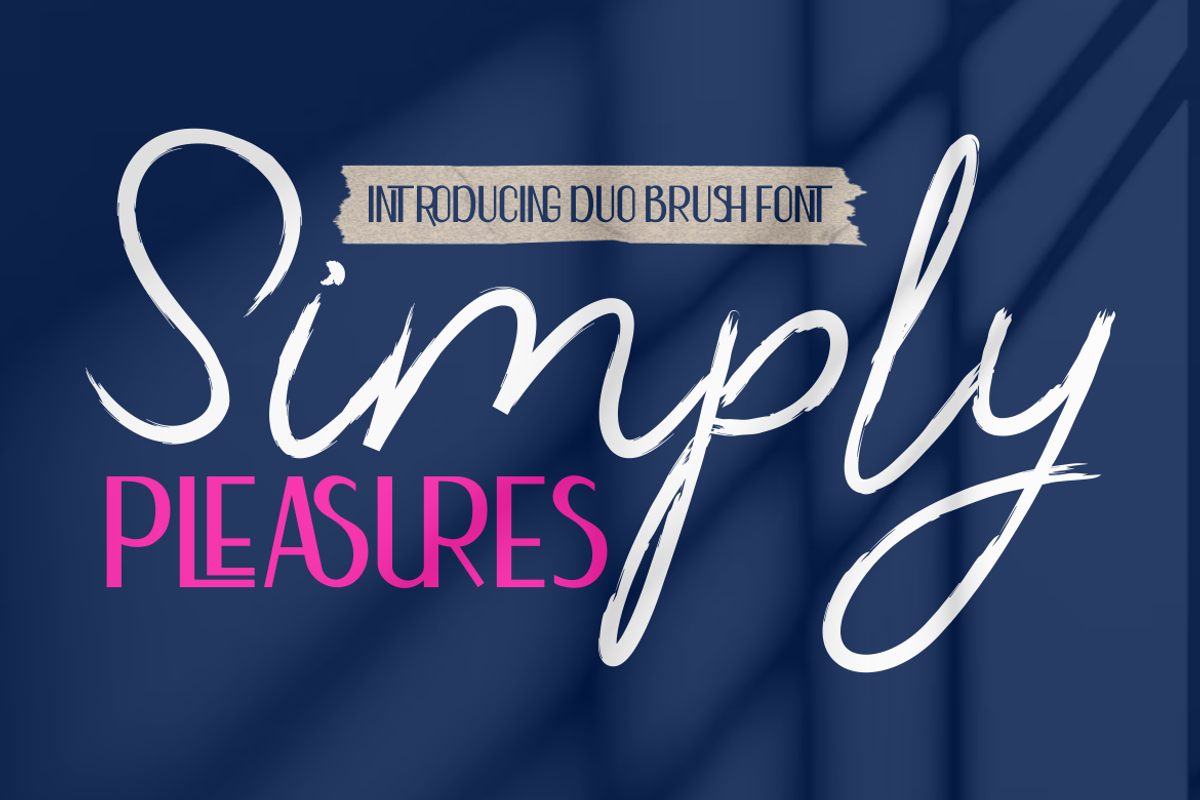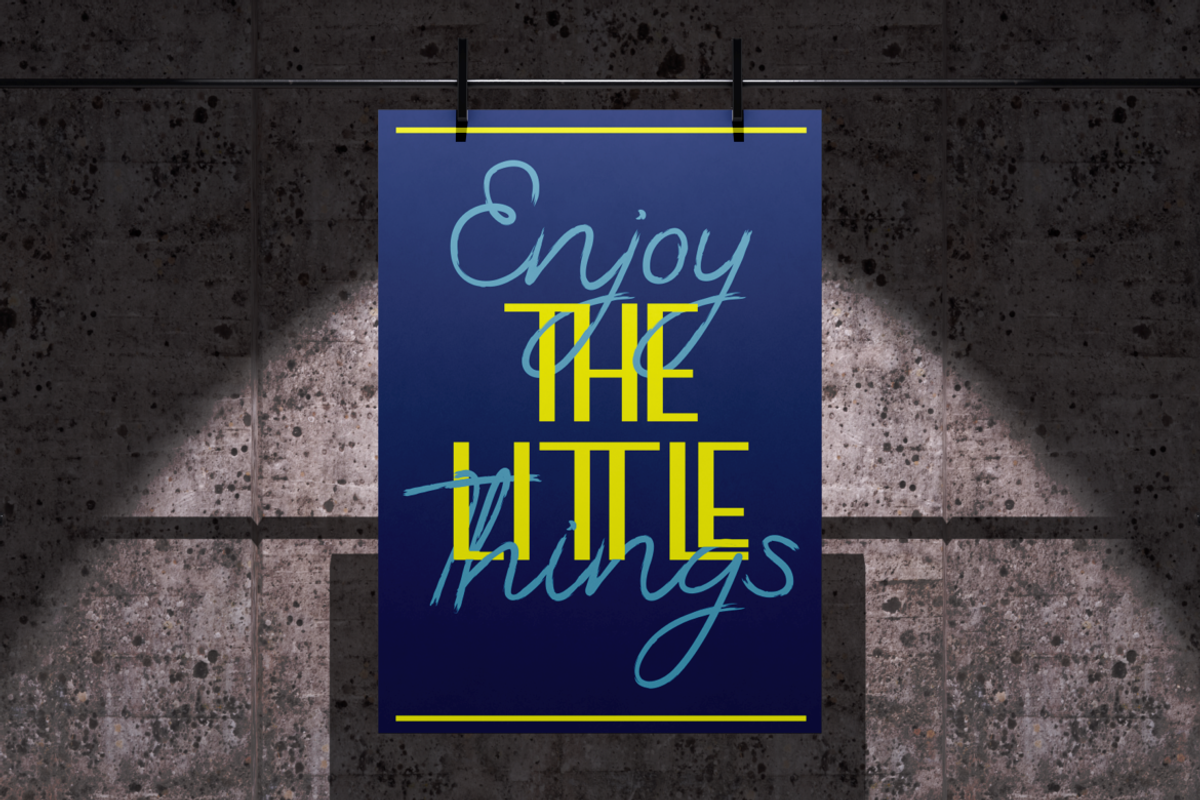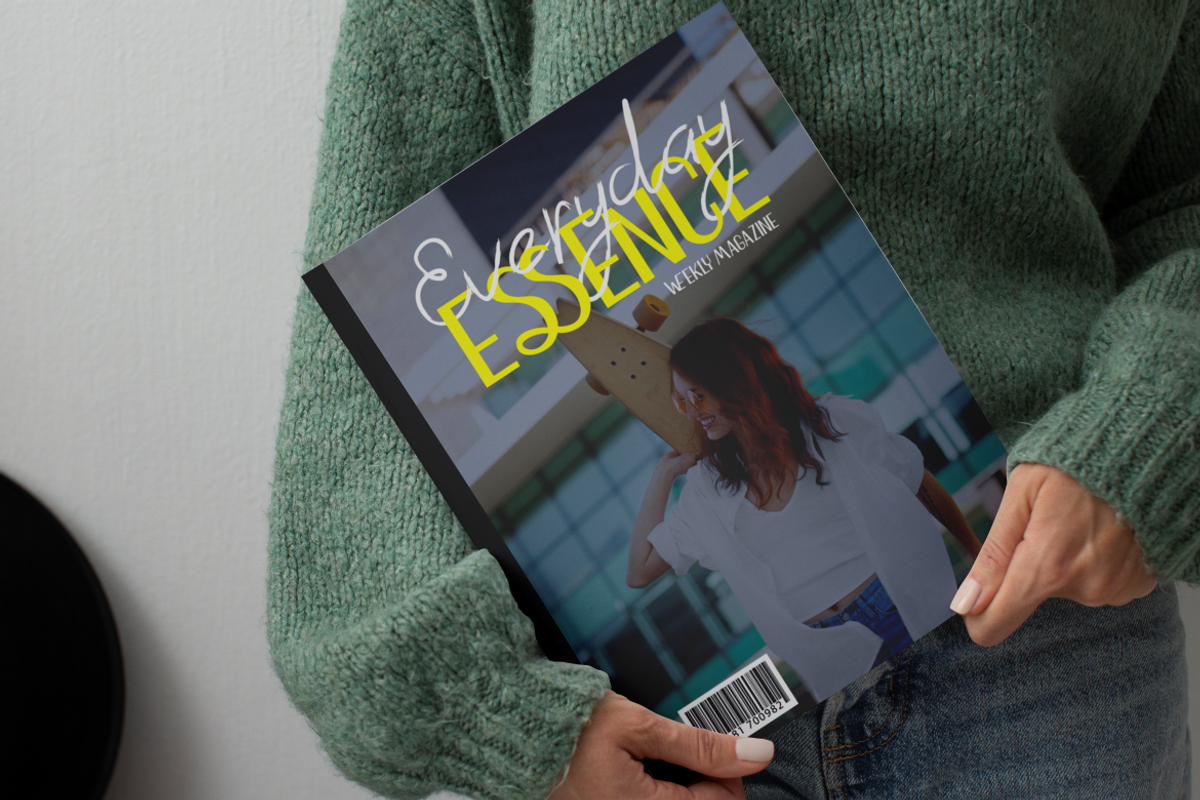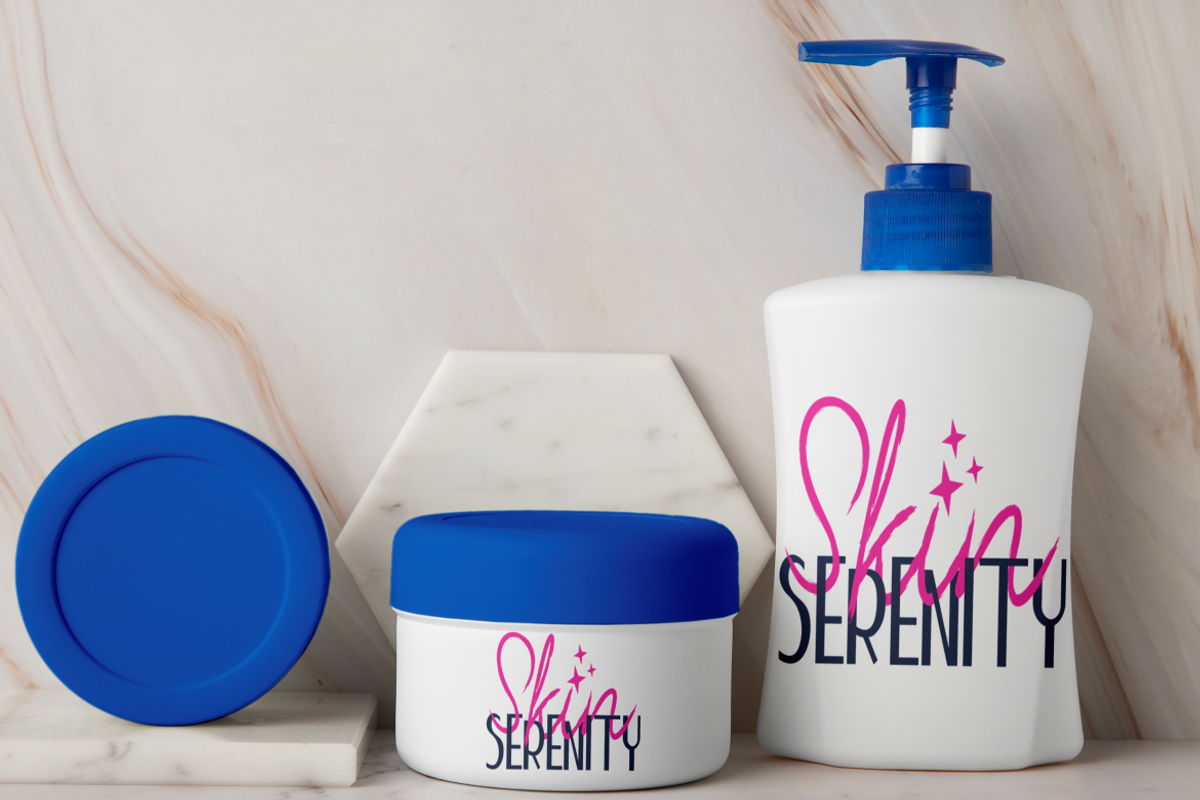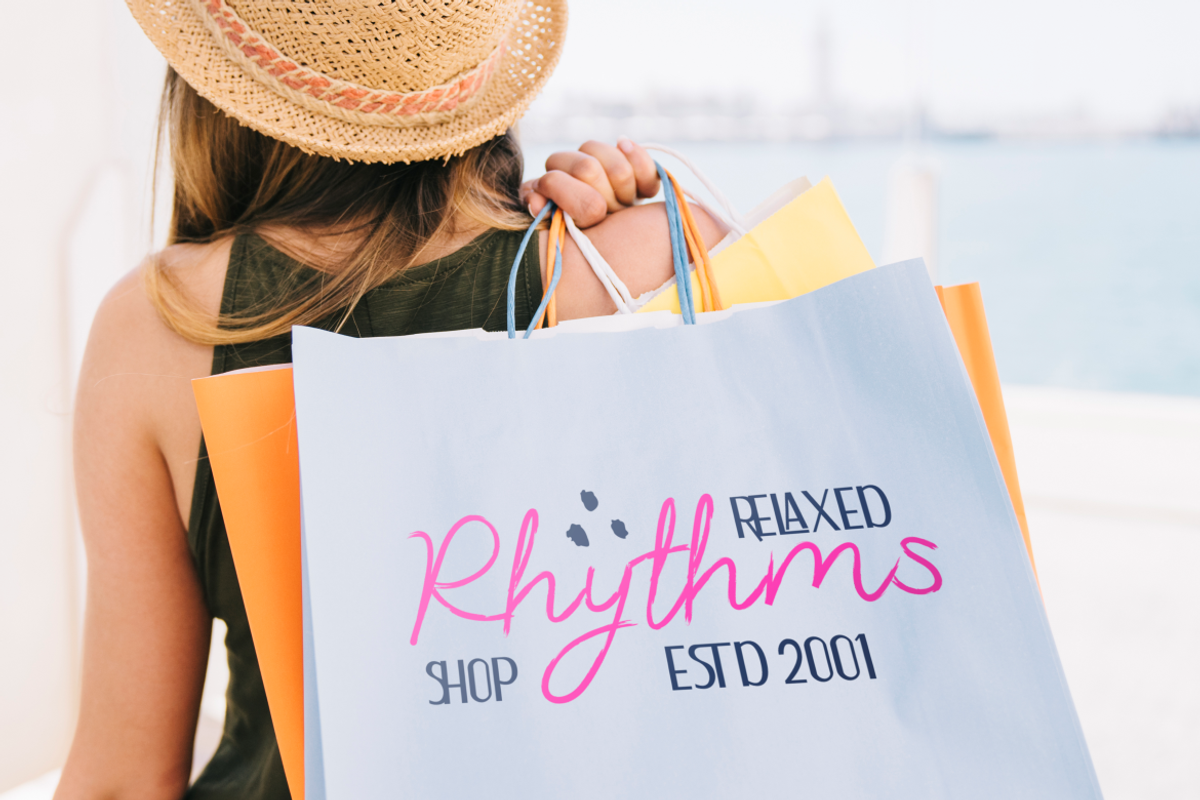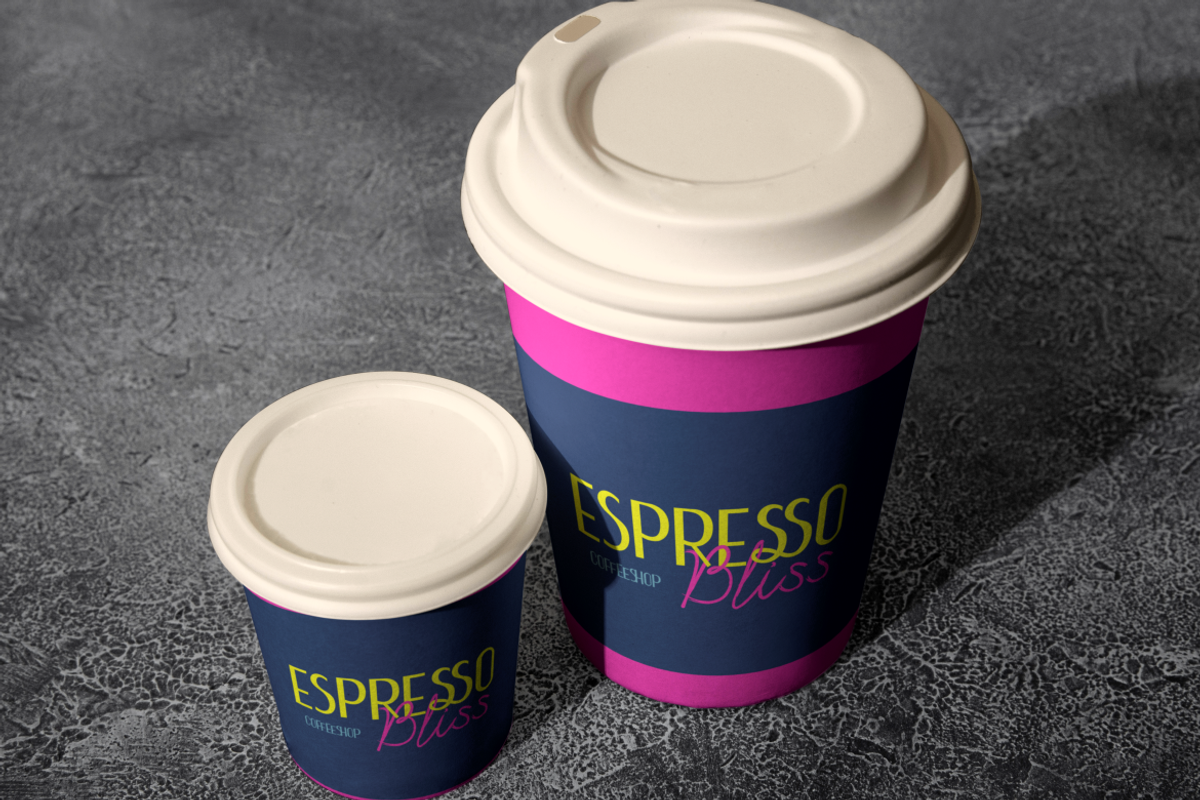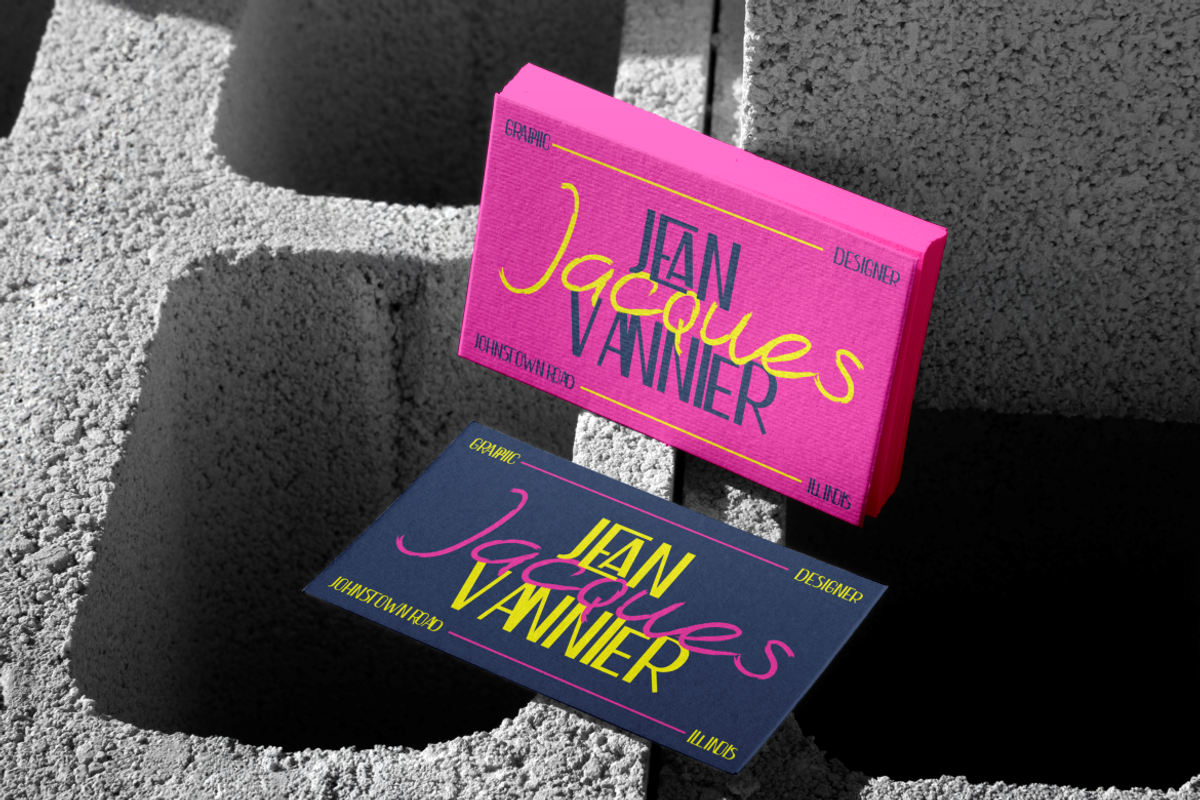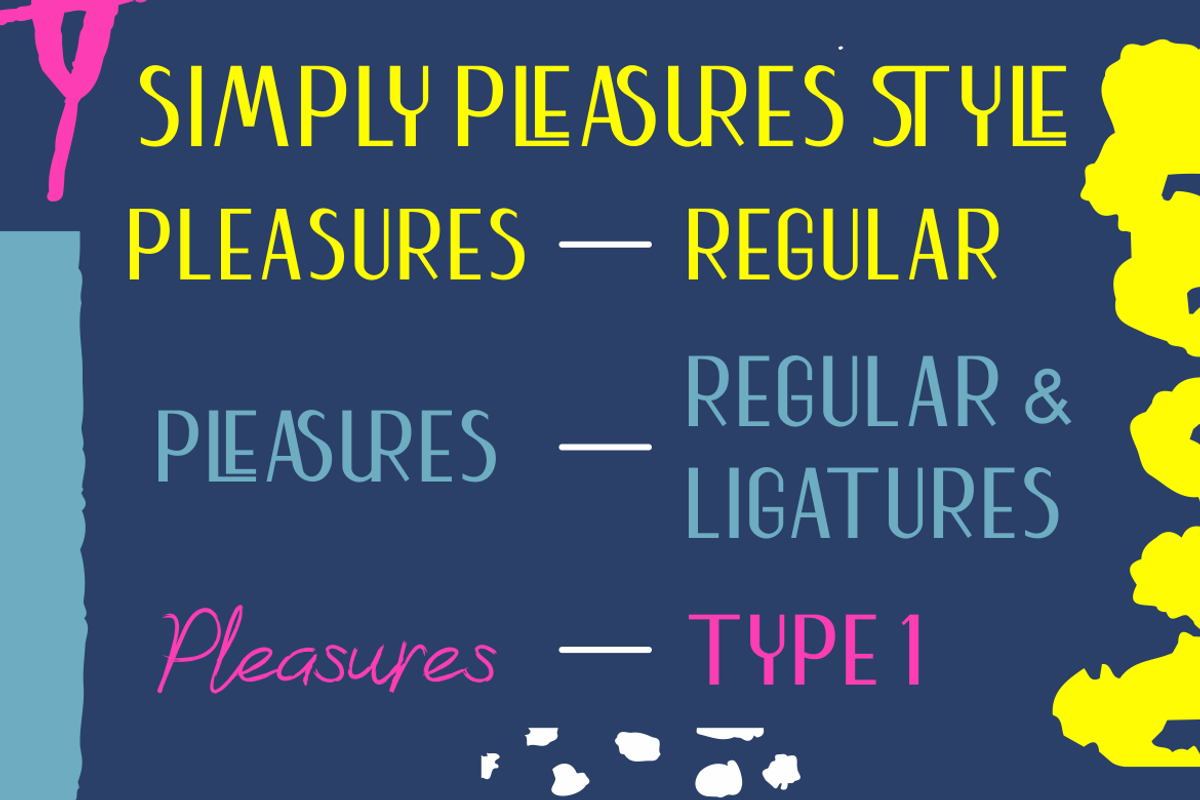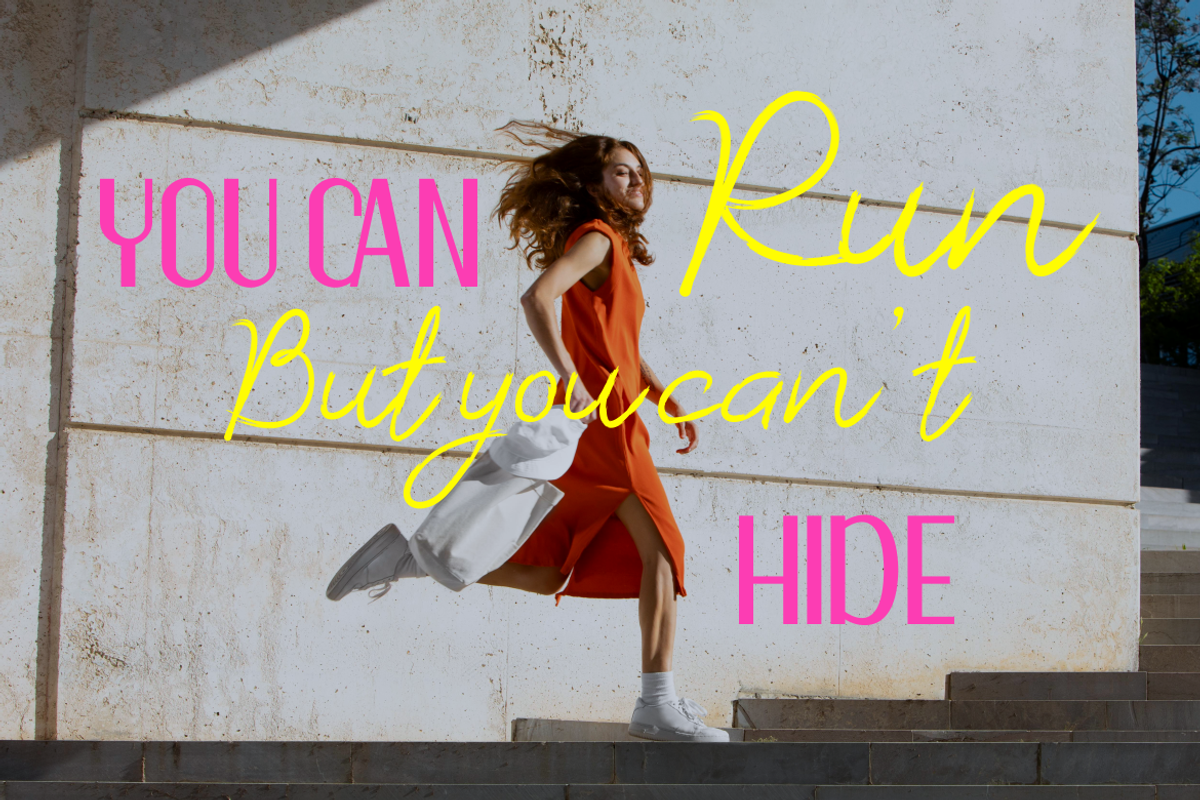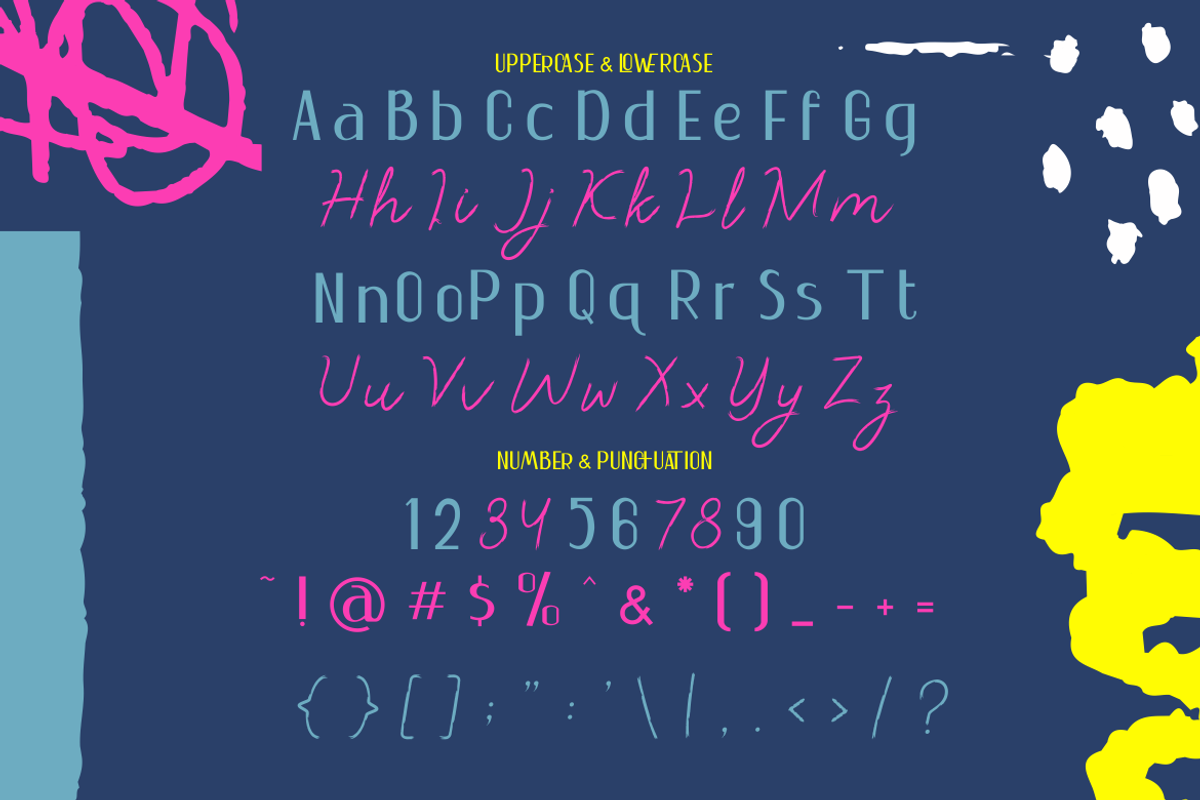
Simply Pleasures - Duo Font
Introducing Simply Pleasures - Duo Font, a perfect blend of modern brush script and elegant sans-serif typefaces. This dynamic font duo brings versatility and sophistication to any design project. The brush script offers a playful, hand-drawn feel, while the sans-serif complements it with a clean and refined look. This font duo is ideal for designers looking to balance creativity with professionalism. From branding projects, packaging designs, and logo creations to social media graphics, Simply Pleasures adapts to any setting with ease. Its flowing ligatures add a custom touch, enhancing the natural brush strokes in every letter.
Simply Pleasures is the go-to font for projects needing a touch of elegance, whether it's crafting invitations, designing stylish posters, or creating eye-catching packaging. The mix of script and sans fonts allows for beautiful contrasts in layouts, perfect for magazine titles, book covers, or film posters. Whether you're designing business cards or event invitations, this font brings a sophisticated charm that captivates the viewer’s attention. Elevate your projects with Simply Pleasures, and let the balance of brush and sans typography make your designs stand out.